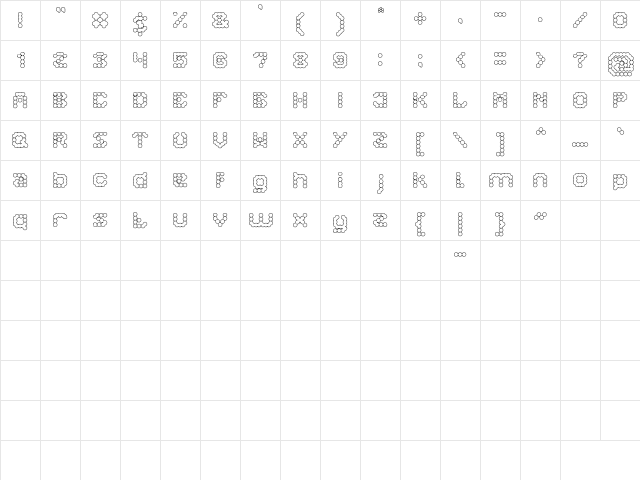
ATOMIC PLANET Regular
Design Context for ATOMIC PLANET Typeface
ATOMIC PLANET is a composed and adaptable typeface that performs quietly and consistently across a wide range of design contexts.